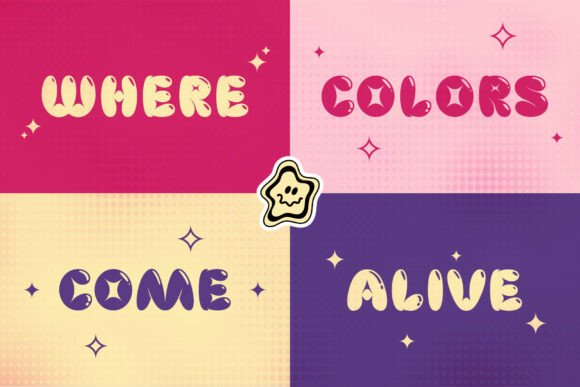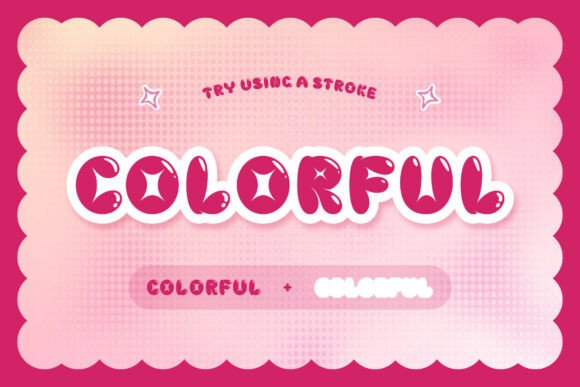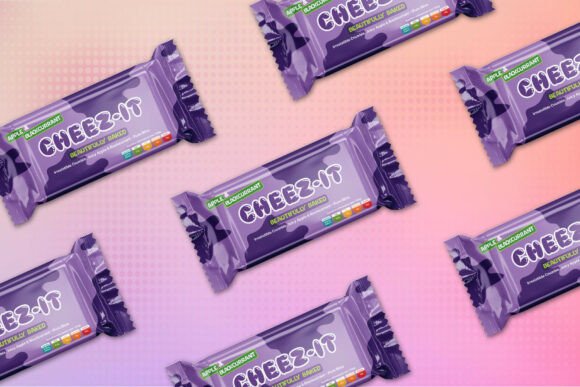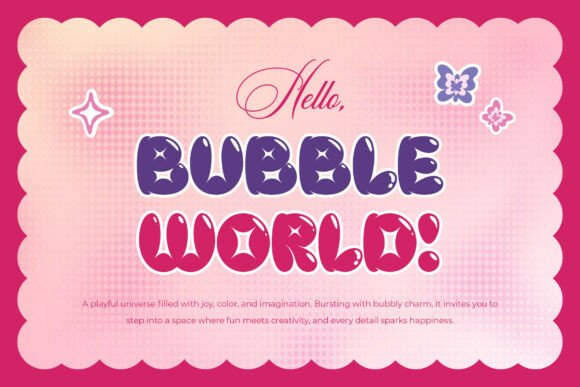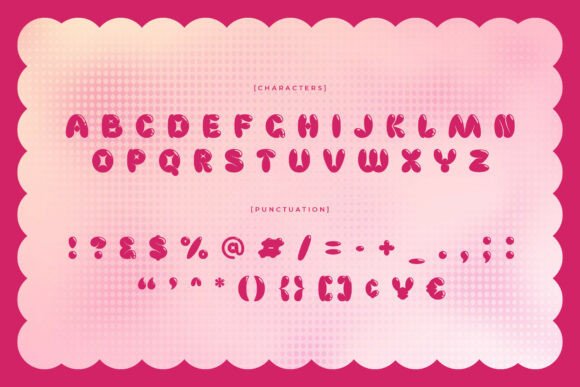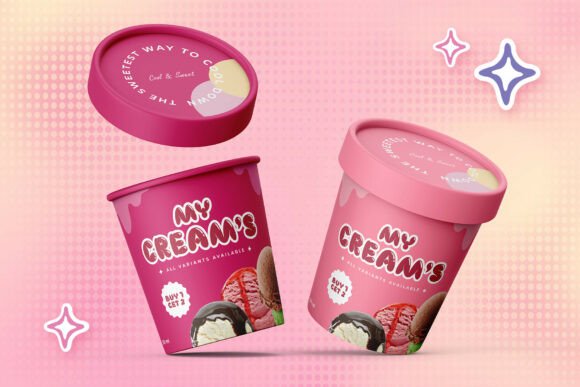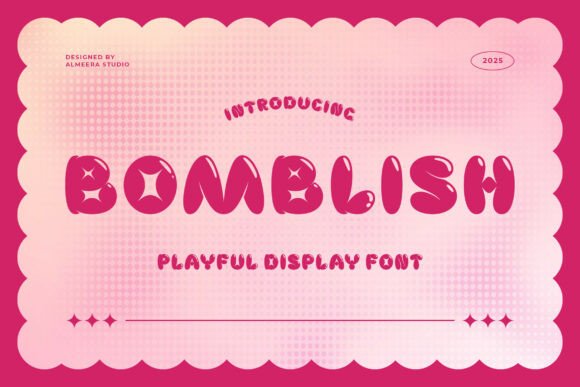
Bomblish Font: Adding a Touch of Fun and Whimsy to Your Designs
In the world of typography, fonts play a crucial role in conveying the tone and personality of a brand or design. If you’re looking for a font that exudes fun, playfulness, and creativity, look no further than Bomblish Font. This delightful display font is designed to bring a smile to your face and a touch of whimsy to your designs.
What is Bomblish Font?
Bomblish Font is a playful display font that is full of fun and bubbly energy. Its rounded shapes and bold personality make it perfect for designs that require a touch of playfulness and creativity. Whether you’re working on a children’s book, comic title, packaging, poster, or playful branding, Bomblish Font is the ideal choice.
Key Features of Bomblish Font
So, what makes Bomblish Font so special? Here are some of its key features:
- Rounded Shapes: Bomblish Font features rounded shapes that give it a soft and approachable feel. This makes it perfect for designs that require a touch of warmth and friendliness.
- Bold Personality: Despite its playful nature, Bomblish Font has a bold personality that makes it stand out from the crowd. It’s the perfect font for designs that require a bit of attitude and swagger.
- Highly Readable: One of the best things about Bomblish Font is its high readability. Even at smaller sizes, the font remains clear and easy to read, making it perfect for a wide range of design applications.
- Quirky Style: Bomblish Font has a quirky style that adds a touch of fun and creativity to any design. Its unique shape and structure make it perfect for designs that require a bit of personality and whimsy.
Use Cases for Bomblish Font
So, what can you use Bomblish Font for? The possibilities are endless, but here are some ideas to get you started:
- Children’s Books: Bomblish Font is perfect for children’s books, with its playful and fun design making it ideal for young readers.
- Comic Titles: Add a touch of fun and personality to your comic titles with Bomblish Font. Its bold and playful design makes it perfect for comic books and graphic novels.
- Packaging: Bomblish Font is a great choice for packaging design, adding a touch of whimsy and fun to any product.
- Posters: Create eye-catching posters with Bomblish Font, using its bold and playful design to grab attention and convey your message.
- Playful Branding: Bomblish Font is perfect for brands that want to add a touch of fun and personality to their branding. Use it for logos, taglines, and more.
Why Choose Bomblish Font?
So, why should you choose Bomblish Font for your next design project? Here are just a few reasons:
- Unique Design: Bomblish Font has a unique design that sets it apart from other fonts. Its playful and quirky style makes it perfect for designs that require a bit of personality.
- Highly Versatile: Bomblish Font is highly versatile, making it suitable for a wide range of design applications.
- Easy to Read: Despite its playful nature, Bomblish Font is highly readable, making it perfect for designs that require a bit of fun and creativity.
In conclusion, Bomblish Font is a playful display font that is perfect for designers and crafters looking to add a touch of fun and whimsy to their designs. With its rounded shapes, bold personality, and highly readable design, Bomblish Font is the ideal choice for a wide range of design applications. Whether you’re working on a children’s book, comic title, packaging, poster, or playful branding, Bomblish Font is sure to bring a smile to your face and a touch of creativity to your designs.